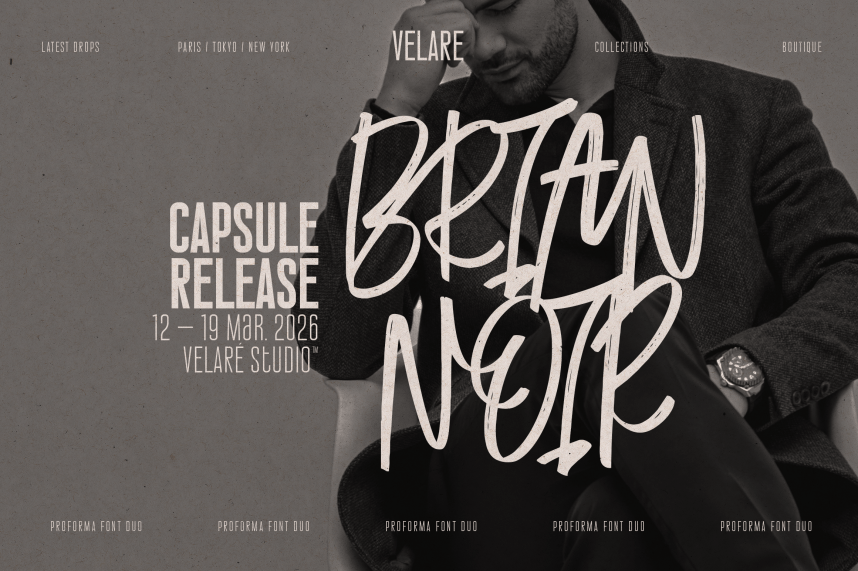
Proforma Font is a powerful and expressive font duo combining a bold, high-impact display sans with a dynamic handwritten script – crafted for brands that want to stand out with confidence, contrast, and personality.
Designed for editorial layouts, fashion campaigns, luxury branding, film posters, social media graphics, and premium packaging, this duo delivers the perfect balance between structure and spontaneity.